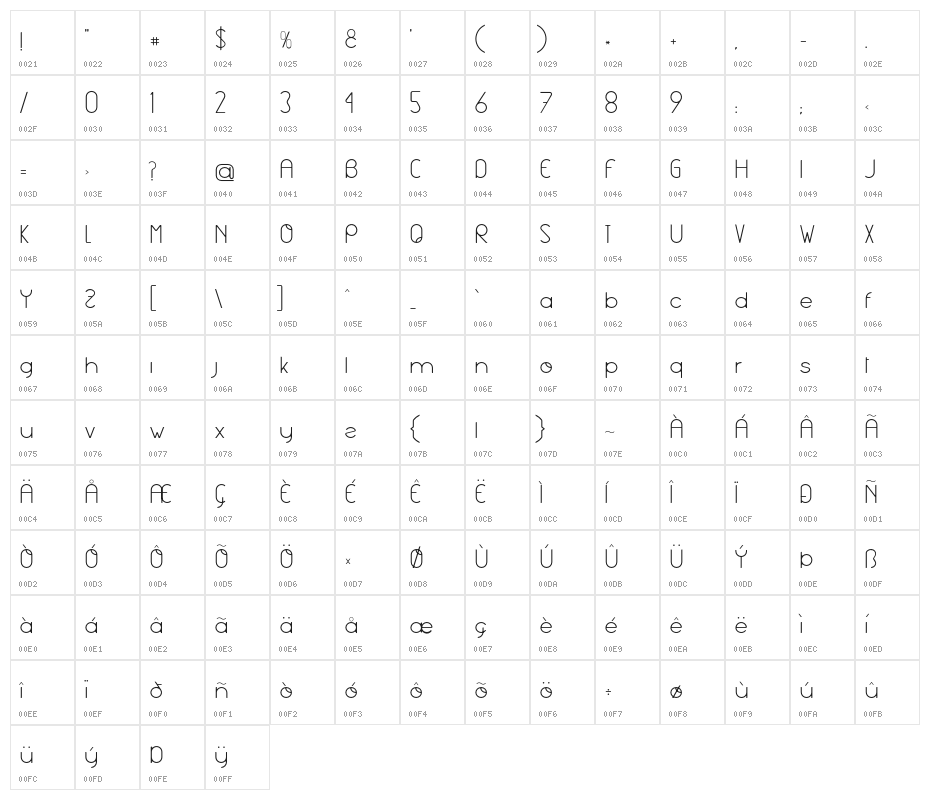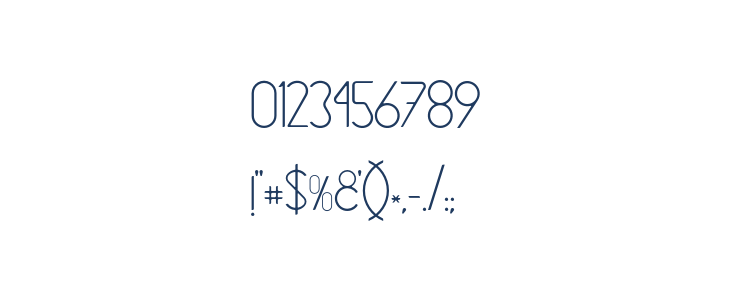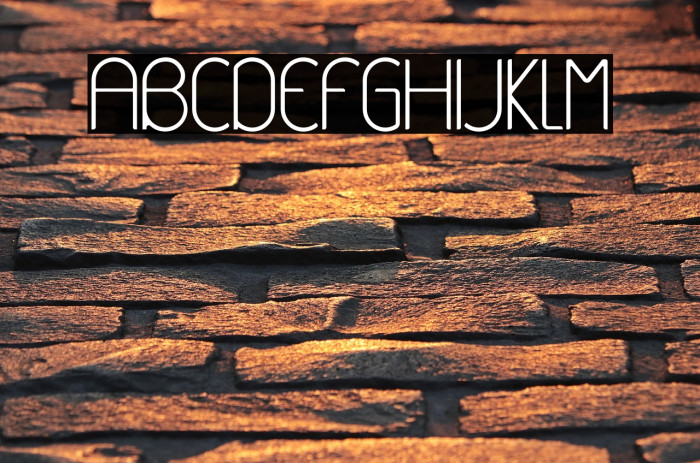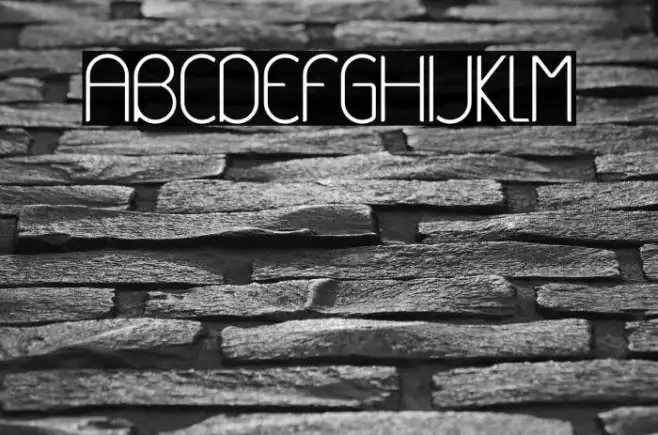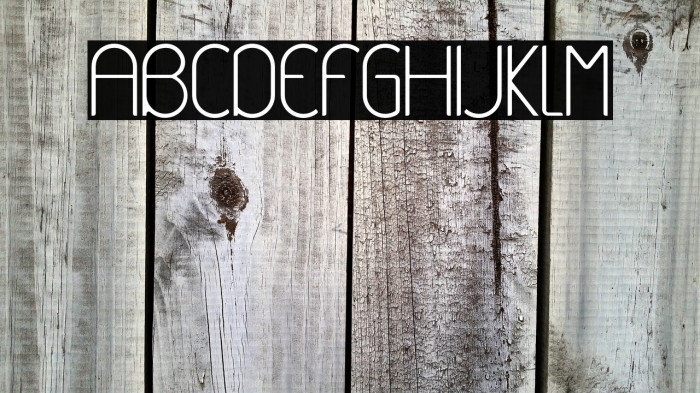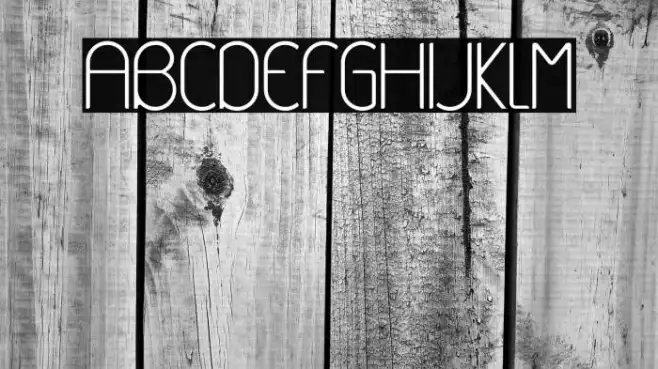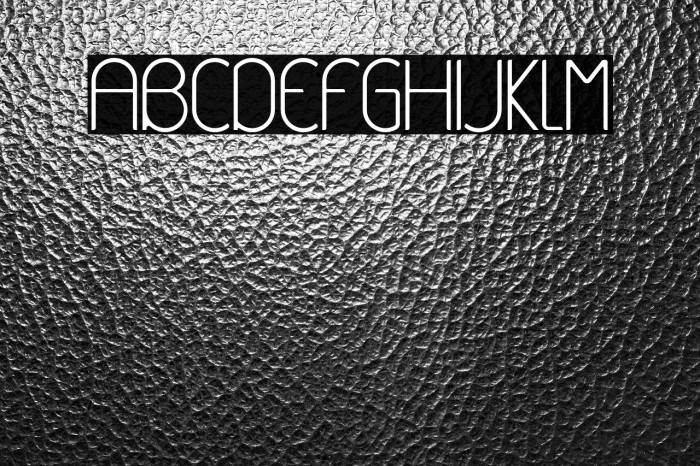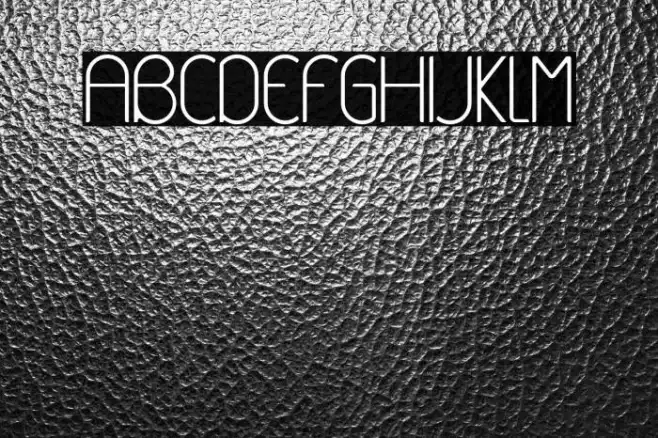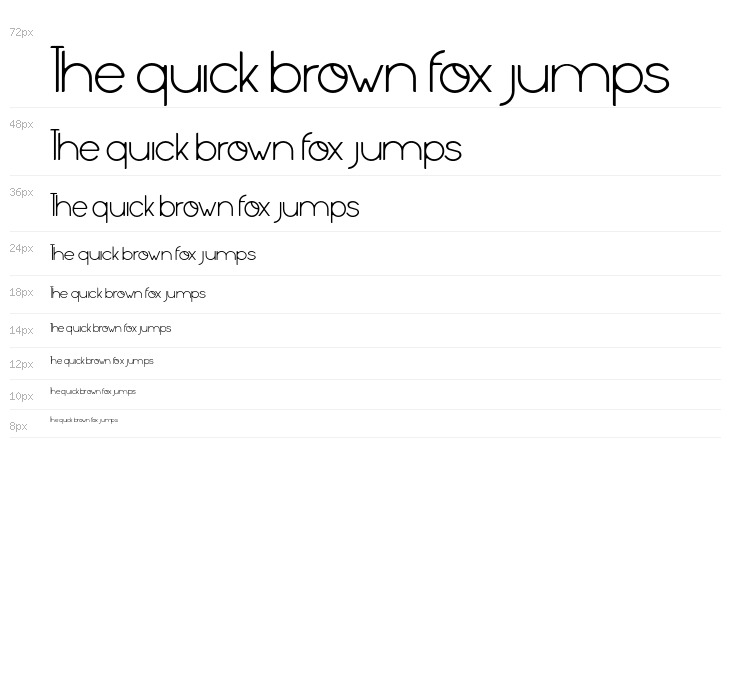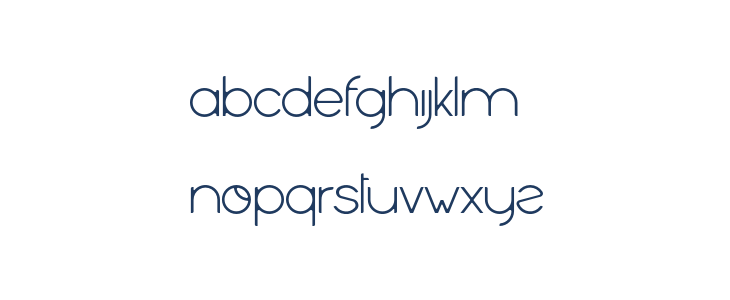
Aghila Font
Aghila Description
This font features a sleek, modern design with a geometric and minimalist aesthetic. The characters are crafted with clean lines and rounded edges, giving it a contemporary feel. Uppercase and lowercase letters maintain a consistent height, contributing to a uniform appearance. The numerals and special characters are designed to complement the alphabet, ensuring a cohesive look across all text. Its simplicity and elegance make it highly versatile for various design applications.